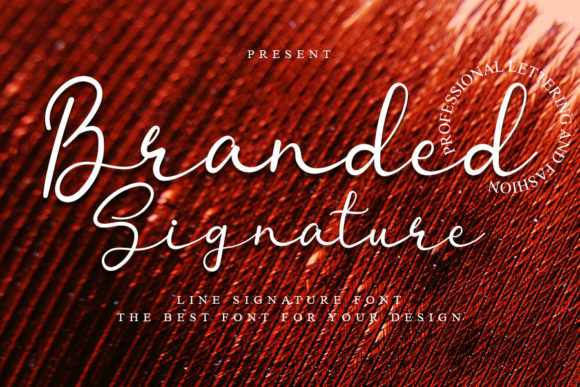
Prepare yourself to be swept off your feet by Branded Signature Font, the script font that exudes elegance and grace. Its meticulously crafted letters, perfectly balanced and distinct, come together to form a masterpiece that will leave you breathless. Allow yourself to be captivated by its incredibly versatile style, a blank canvas for your creativity to run wild. Unleash your imagination and produce designs that are nothing short of spectacular.
Branded Signature Font is more than just a font; it's an invitation to embark on a creative journey. Whether you're a seasoned designer or just starting, this font will elevate your projects to new heights. Its smooth, flowing lines evoke a sense of sophistication and refinement, making it the perfect choice for logos, branding, wedding invitations, and other formal designs. Yet, its versatility extends far beyond formal settings. With Branded Signature Font, you can add a touch of elegance to social media posts, blog headers, and even personal letters. The possibilities are endless.
One of the things that sets Branded Signature Font apart is its ability to evoke emotion. Its delicate strokes and graceful curves create a sense of intimacy and connection. It's a font that speaks to the heart, making it ideal for projects where you want to convey a personal touch. Imagine the impact of a heartfelt love letter written in Branded Signature Font, or the elegance of a wedding invitation that reflects the unique bond between two souls.
But Branded Signature Font is not just about aesthetics. It's also incredibly practical. Its clean and legible design ensures that your words will be easy to read, even at small sizes. This makes it an excellent choice for body text, website copy, and presentations. Whether you're creating a marketing brochure, a research paper, or a captivating social media post, Branded Signature Font will ensure that your message is communicated with clarity and impact.
So why settle for ordinary fonts when you can have Branded Signature Font, the font that will transform your designs into masterpieces? Step into a world of creativity and elegance, and let your imagination soar. Branded Signature Font is your passport to a world of design possibilities.